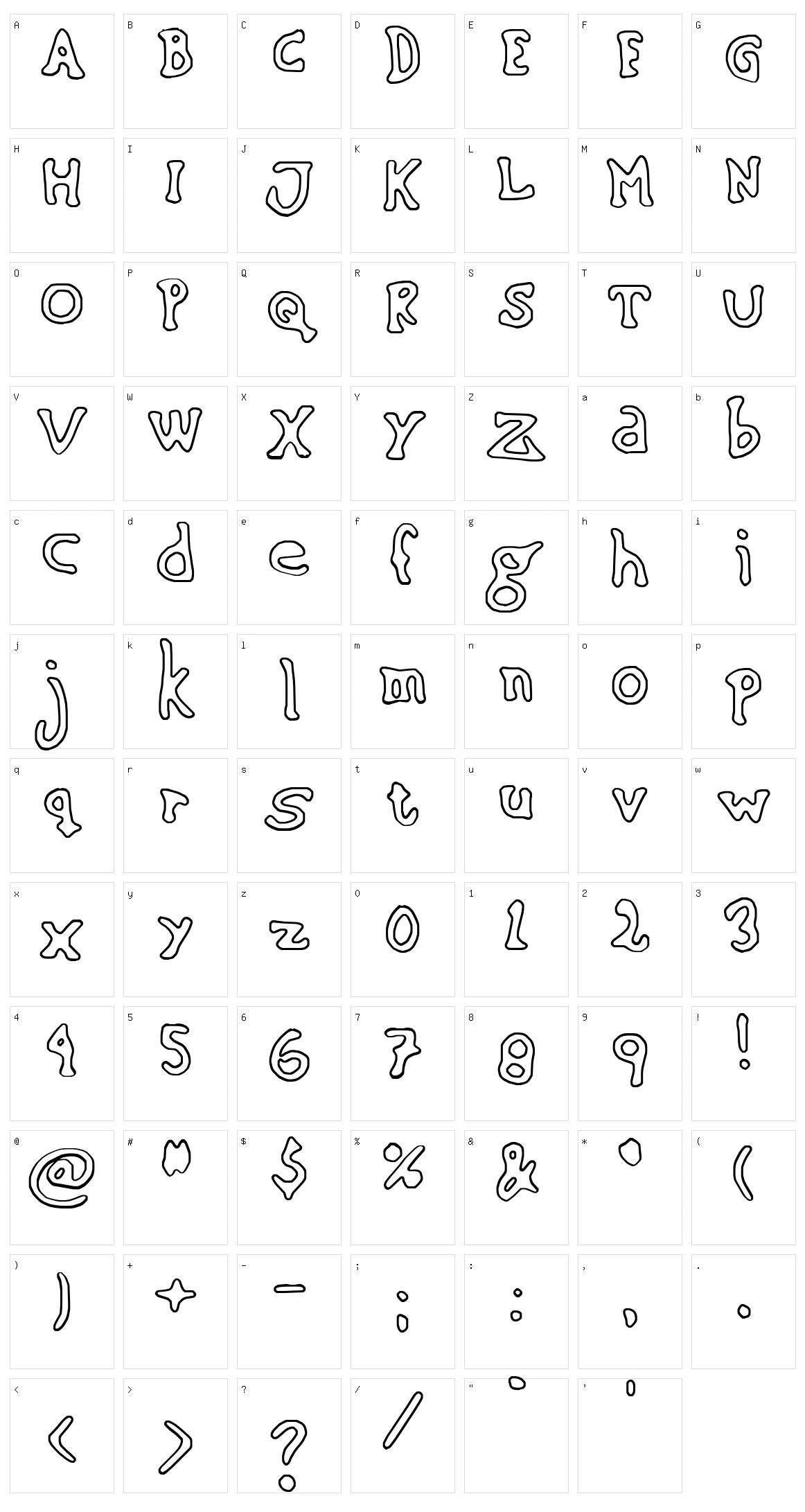
The free font Sinking Ship is carefully designed by Mr.Fisk Fonts, showcasing a thoughtful balance of creativity and usability and falls under the Cartoon font style. When you download the ZIP file, it contains only 77.01 KB of font files, making it lightweight and quick to download. Please review the license details below to understand permitted usage and distribution rights. If license information is not available, we recommend using this font for personal projects only or contacting the author directly for commercial usage permissions.